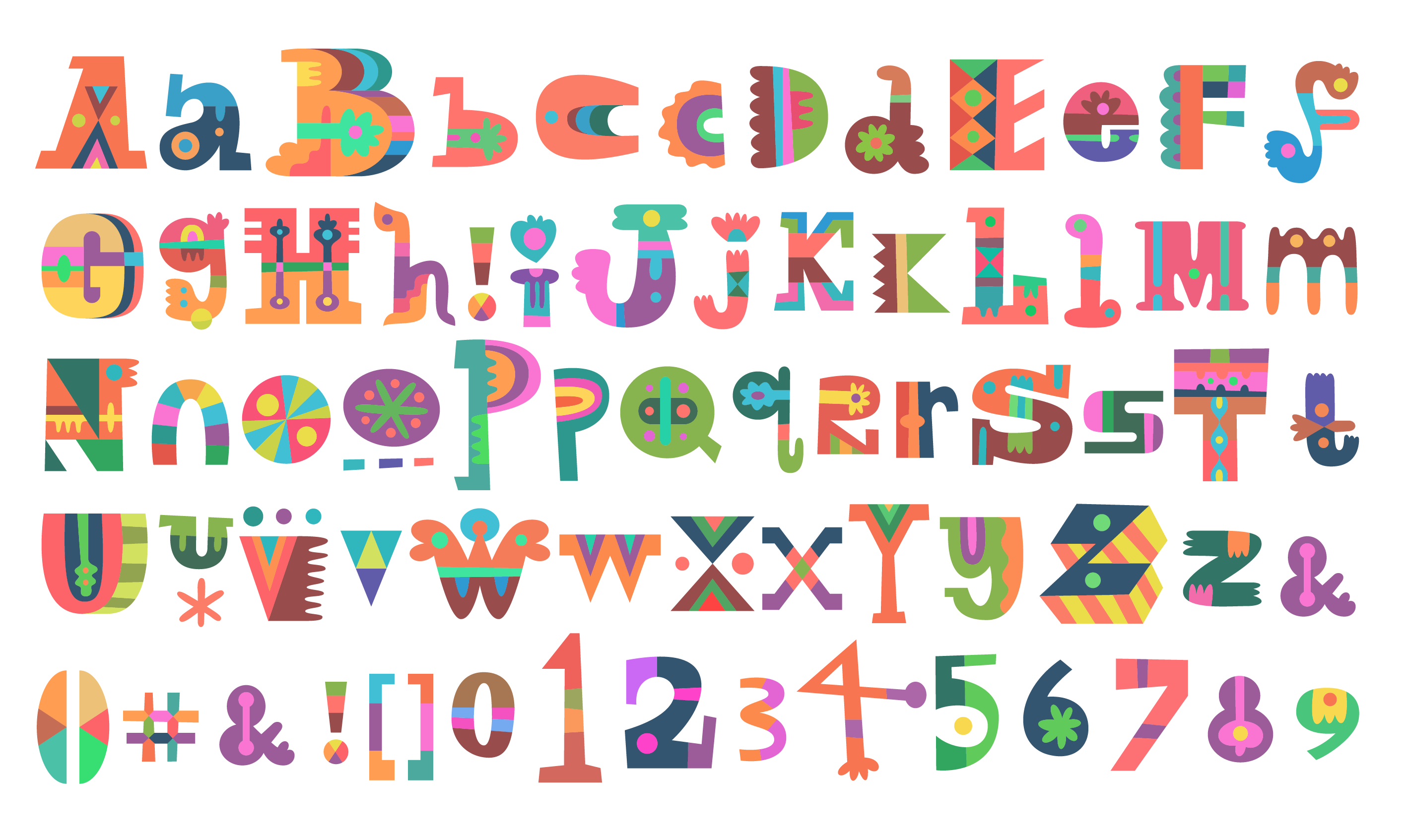
Matt Lyon [Matt Lyon]
London-based designer of the free typewriter font HammerKeys done for (at?) Max Factor in 1998. In 2017, he published the children's book color font Playbox at Fontself.